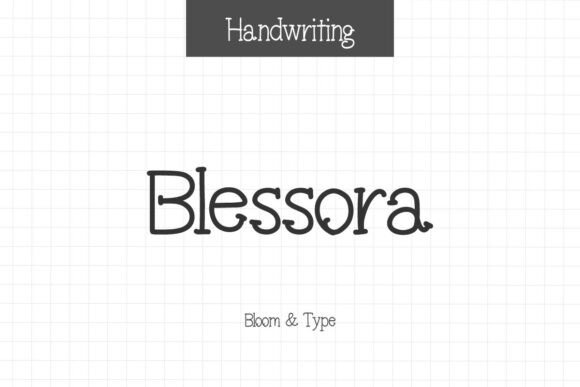
The Blessora Font: A Charming Handwritten Delight for Designers
Have you ever been in the middle of a design project, and suddenly, you just can’t seem to find the right font? I recall working on a branding project for a small bakery, and I was determined to find a font that captured their warm and inviting personality. That’s when I stumbled upon the Blessora font, and it instantly became the perfect fit.
A Personal Review of Blessora
What I Love About Blessora ✨
- ✅ Unique and charming handwritten style: The soft curves and subtle decorative tails of Blessora create a warm, whimsical feeling that’s perfect for heartfelt messages and creative branding.
- ✅ Multilingual support: With support for Spanish, French, German, Portuguese, and Italian, Blessora is an ideal choice for global designers.
- ✅ Easy to use and highly versatile: This font works beautifully across digital and print projects, from logos, quotes, and greeting cards to packaging and social media graphics.
While Blessora is an excellent font, there are a few minor considerations to keep in mind:
- ⚠️ Limited character variations: Some designers might find the character set a bit limited for very specific projects.
- ⚠️ May not be suitable for very formal projects: Due to its playful nature, Blessora might not be the best fit for very formal or corporate branding.
The Story Behind Blessora
Blessora was designed with the intention of creating a font that feels both natural and elegant. The designer aimed to capture the essence of handwritten notes and letters, making it perfect for projects that require a personal touch. The result is a font that blends playfulness with simplicity, making it a versatile choice for various design applications.
| Author | Bloom & Type |
Q: What makes Blessora unique?
A: Blessora’s unique blend of soft curves, subtle decorative tails, and a slightly imperfect, human touch sets it apart from other fonts.
Q: Can I use Blessora for multilingual projects?
A: Absolutely! Blessora supports multiple languages, including Spanish, French, German, Portuguese, and Italian.